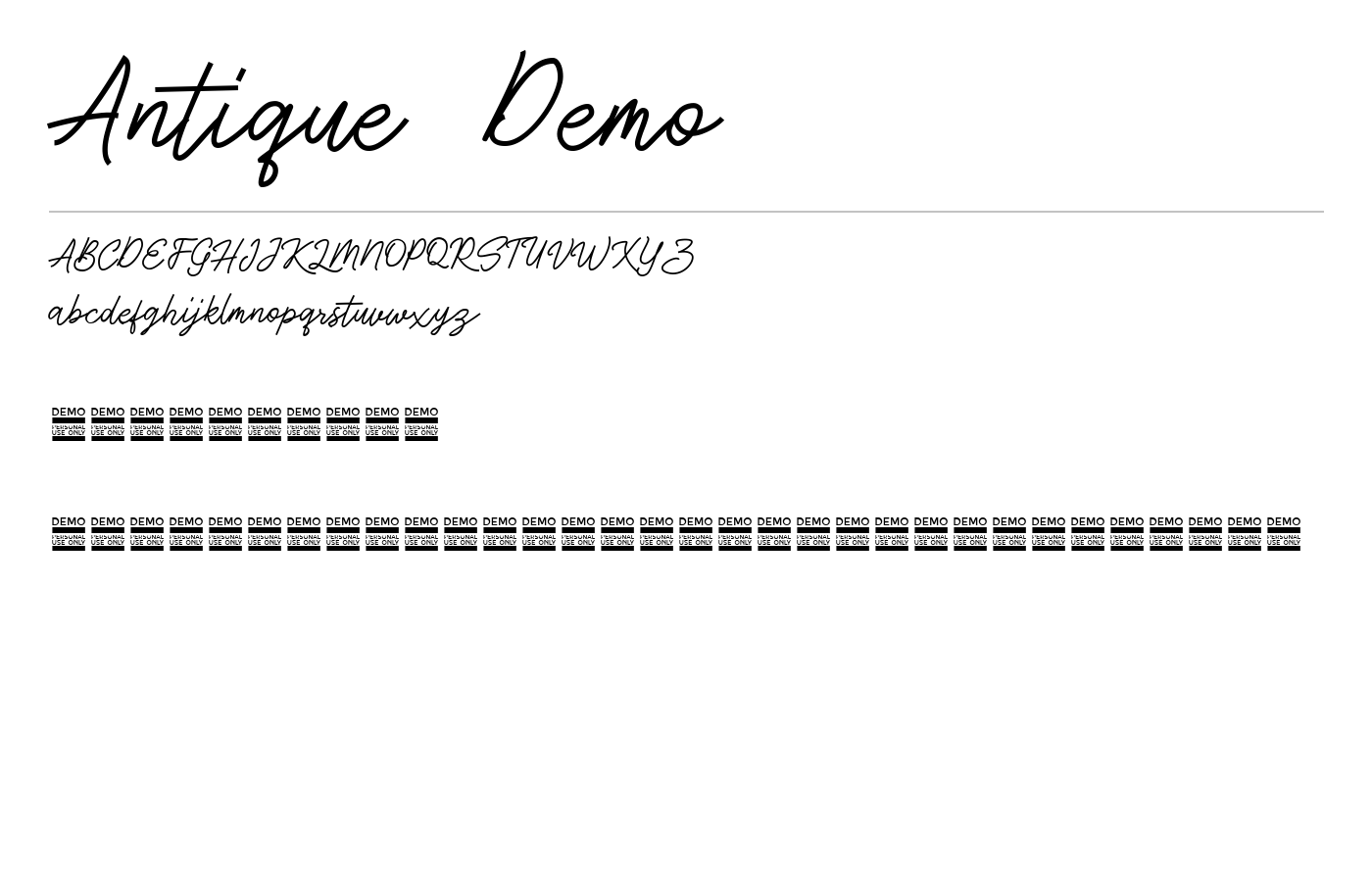
Antique Demo is a delicate, handwritten script font that conveys a vintage and elegant charm. Its slender strokes and flowing letterforms create a graceful, personal feel, making it perfect for invitations, branding, and projects that seek a touch of classic sophistication and warmth. This font shines in display use where its refined style can stand out beautifully.
Antique Demo Font
About Antique Demo Font
| Font family | Antique Demo Font |
| Designer | Aziz dan Arief |